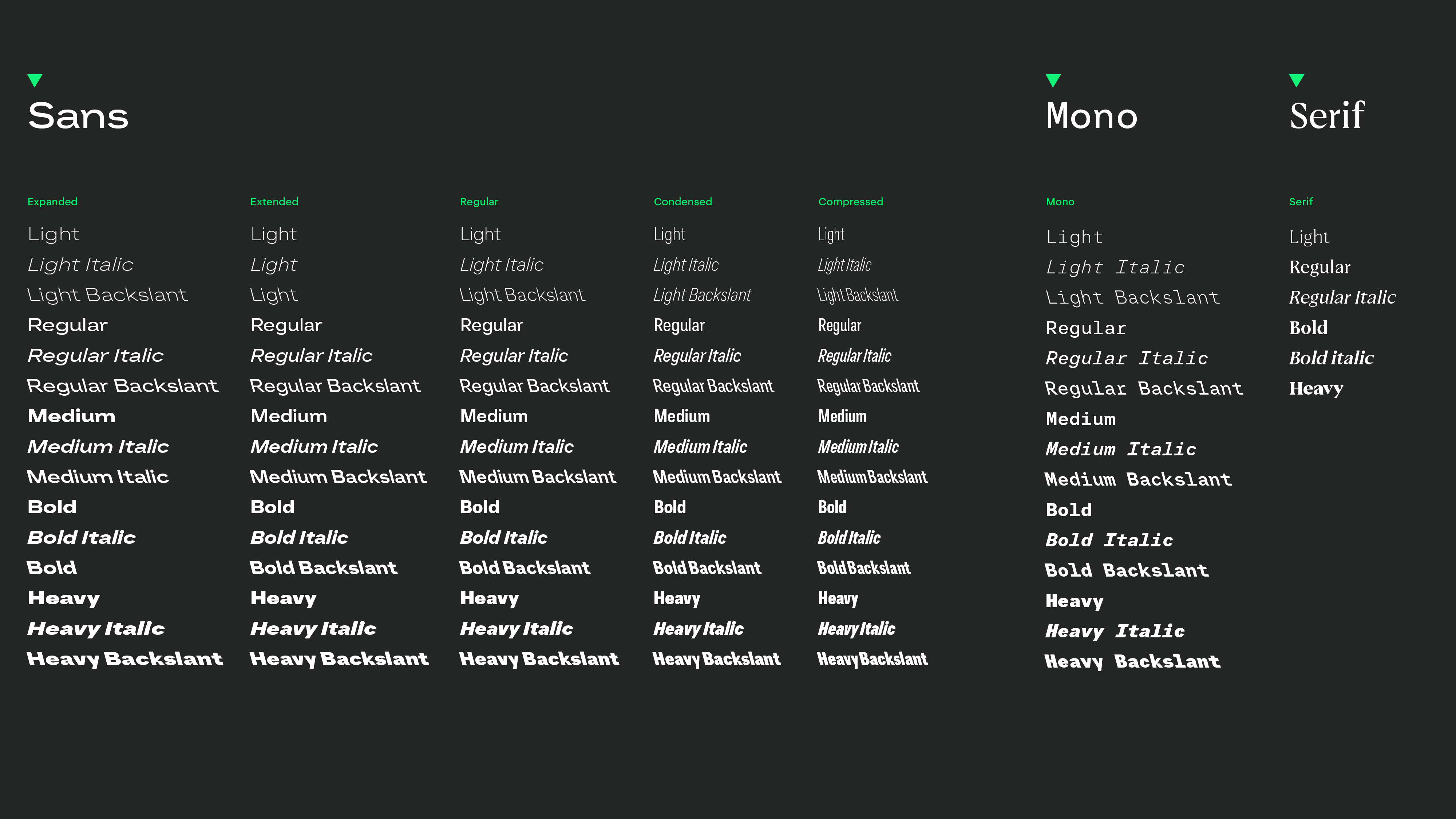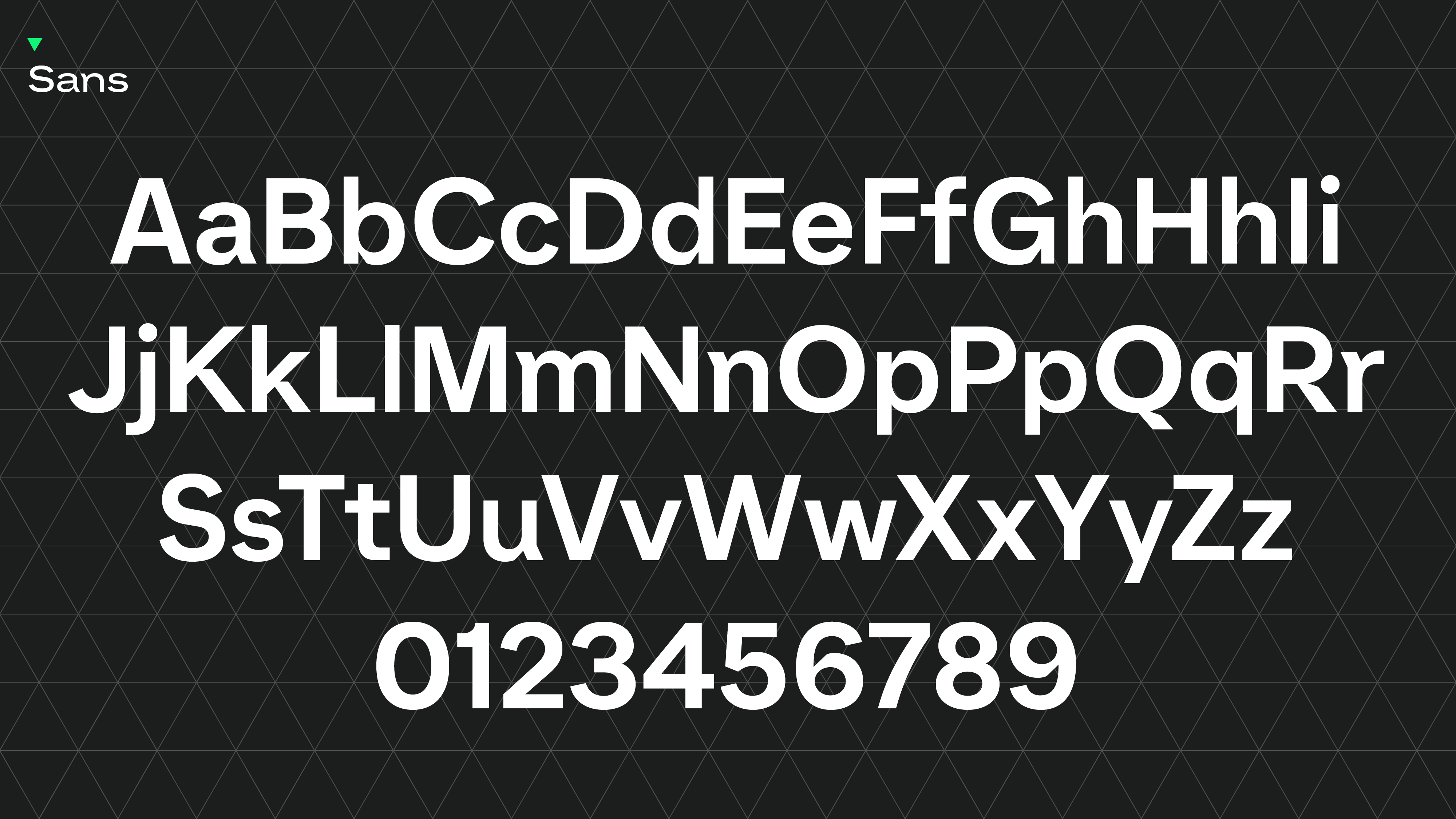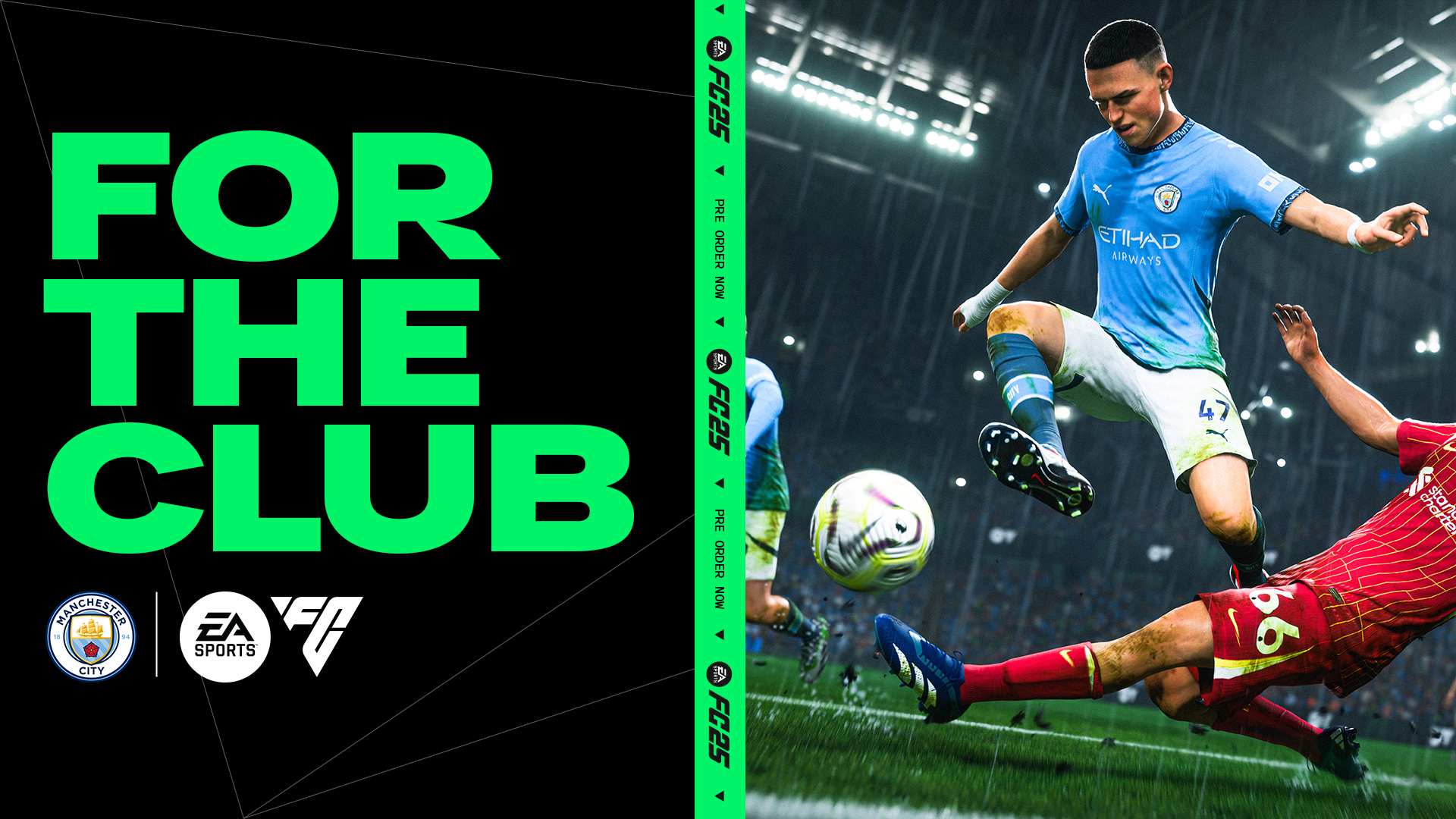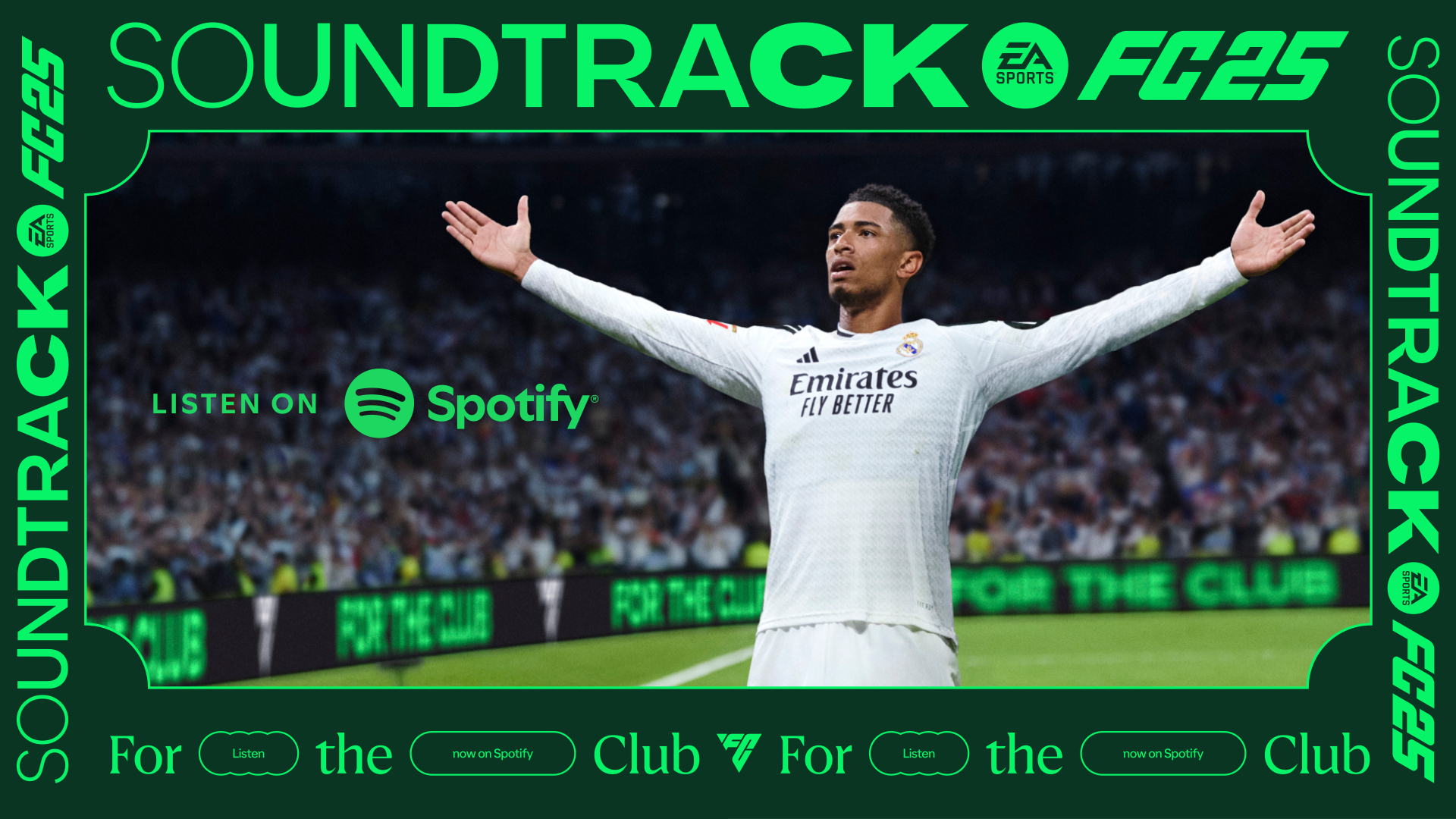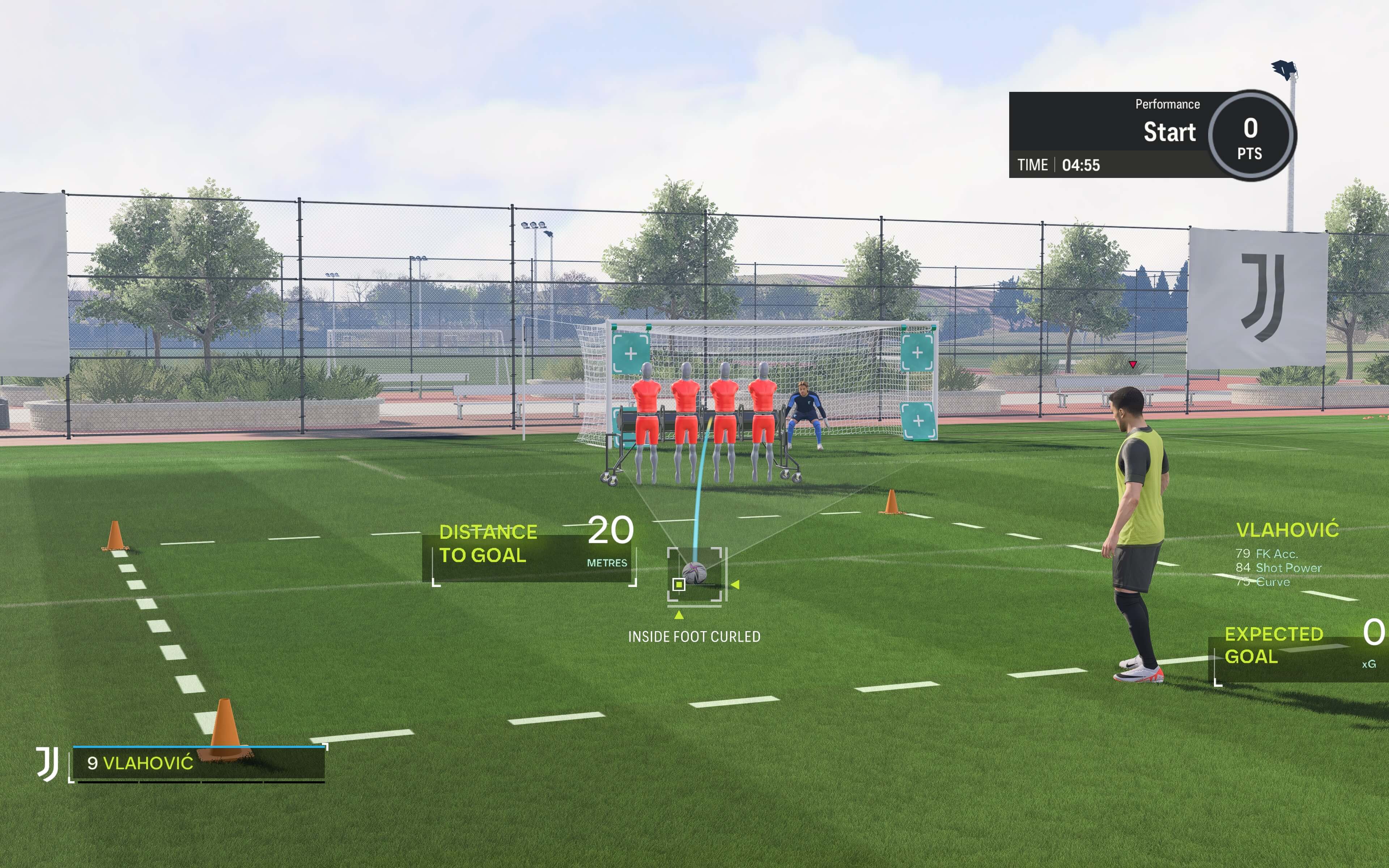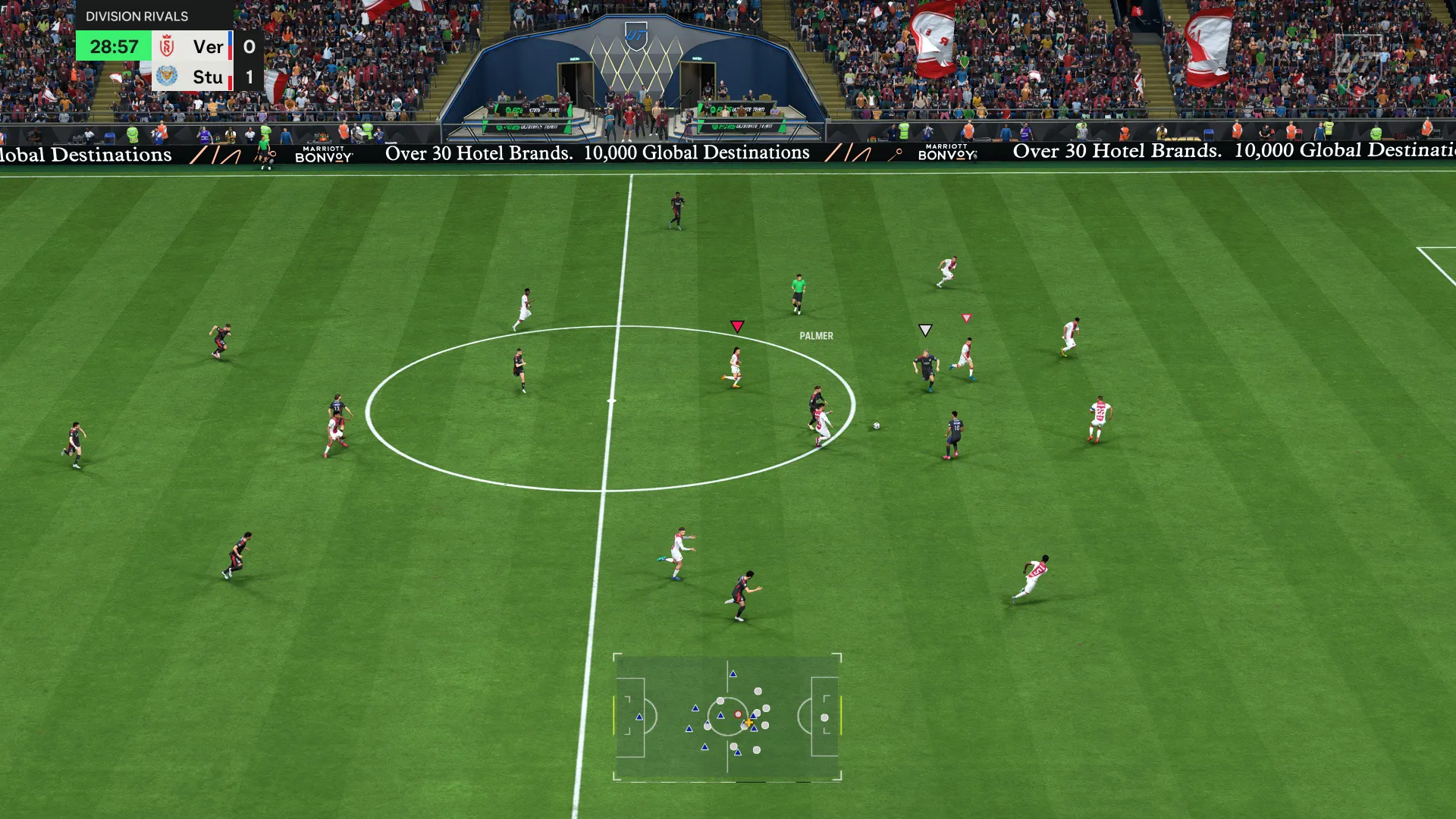
EA SPORTS FC
We created two striking brand-new font families for the highly anticipated launch of EA SPORTS FC, including full Cyrillic and Arabic alphabets.
The Iconic Player Marker
The challenge for us and F37® is - how do create a font family that truly reflects the dynamic shapes and tactical game-play from every aspect of the pitch while, delivering on an authentic legacy that's rooted in football culture?
With EA Sports FC, we had an incredible opportunity to craft two prolific typefaces, custom modelled on two influential footballers. One from the glory years of modern football and the other from the new era of football we thrive in today.
F37’s expertise and deep understanding of our design vision resulted in a dual font family that exceeded all our expectations. The craftsmanship exhibited in creating our EA Sports FC brand fonts was utterly outstanding.
The letterforms were impeccably balanced, displaying a harmonious blend of elegance and modernity. The character spacing and kerning were meticulously adjusted, ensuring optimal readability for in gameplay and visual appeal for in-world applications.
Super font family
Background
EA SPORTS’ phenomenal FIFA series has been the benchmark in football gaming for the past 30 years. As their long-running partnership with FIFA drew to a close, EA decided it was time for a new beginning.
With the licence to use the FIFA name running out, EA decided to go it alone, changing the name and look of the series. And this meant introducing a completely new brand vision, identity and logo.
Delivery
As part of the new branding system, advertising agency Uncommon Creative Studio commissioned F37® to design two companion font families — a functional sans and a more characterful Modern serif for editorial and display use.
We kicked off three intensive months of typographic design by figuring out how we could subtly incorporate a triangular motif into a workhorse text font and a more expressive headline font. This turned out to be our biggest project to date, going well into extra time, as we explored various different routes and creative possibilities.
The triangle concept is central to the Uncommon branding for EA SPORTS FC. It references both the iconic, ever-present player marker that appears in the video game, but also the importance of passing triangles in real-life football. We had the new triangular logo and a triangular grid developed by Uncommon as starting points.
Named after famous footballers, one male and one female, both families use delicate triangular incisions in selected joins of the letterforms. These have been carefully carried over into all scripts, with the Arabic version taking a slightly different form to respect the written ductus of the script.
The sans family comes in back slant, upright and italic in six weights, and a monospaced font in five weights — a squad of 90 styles in total. Marta, the headline font has four weights and two italics. It’s high contrast, precise and striking, with each script making nuanced references to particular historical models, while also using contemporary sensibilities to add coherence. And if there’s ever the need to bring on a sub, we also crafted a special 'attack set' of extra-angular alternate glyphs, designed for large use.